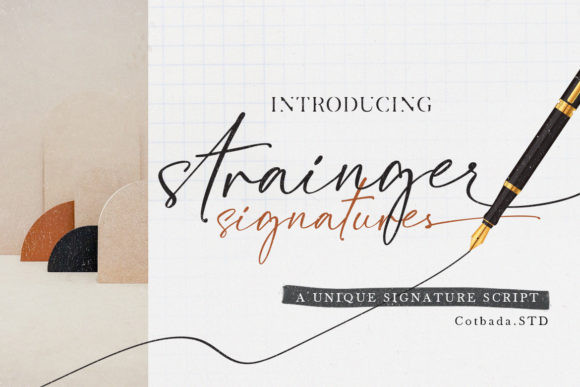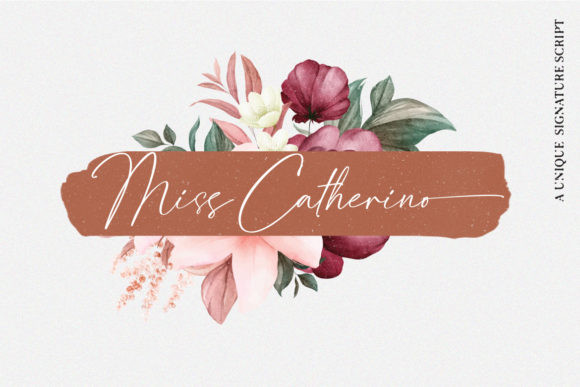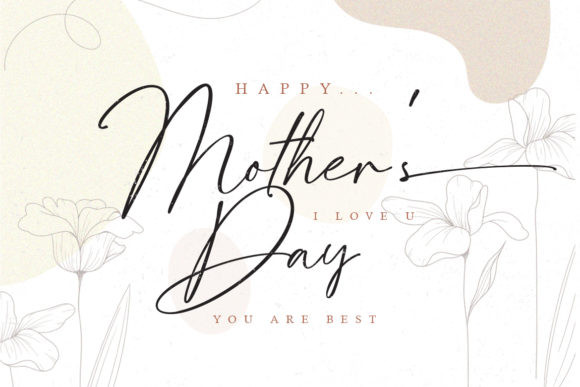
Strainger Signatures Font
Strainger Signatures is a stylish and delicate script font. It has a clean, thin and smooth vibe and it will be a hit for any design that you want to add it to. This font is PUA encoded which means you can access all of the glyphs and swashes with ease!